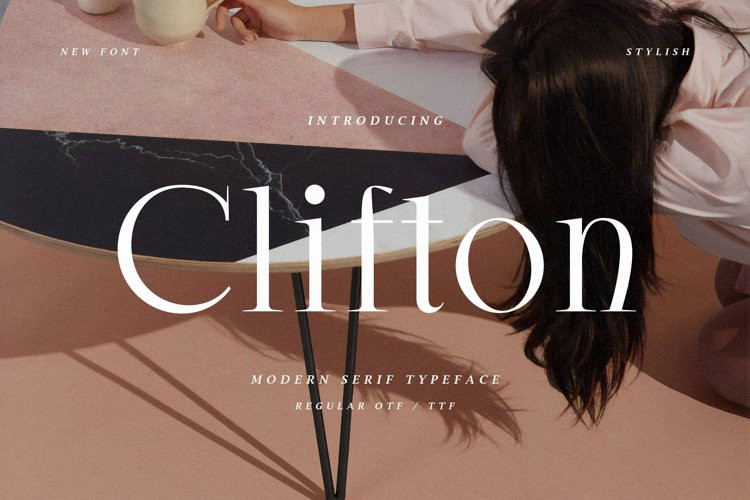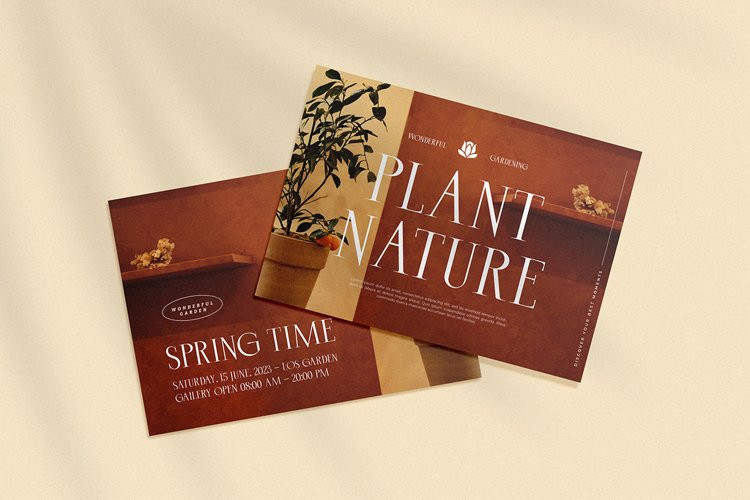
Clifton – Modern Serif Typeface
Clifton - Modern Serif Typeface U7VYWN6Clifton is an modern serif that blends traditional influences into a contemporary aesthetic.
Elegantly crafted and easily be matched to an incredible large set of projects.
Use this font to achieve an exquisite, yet subtle look and maximum versatility.